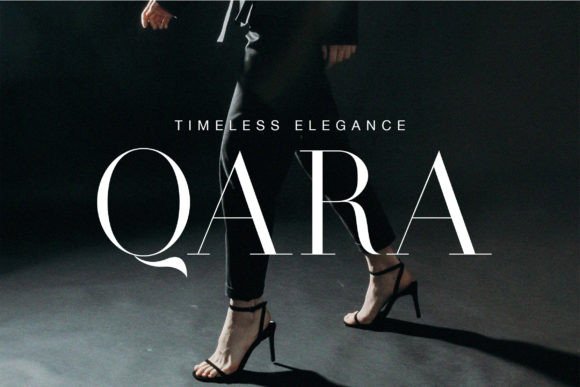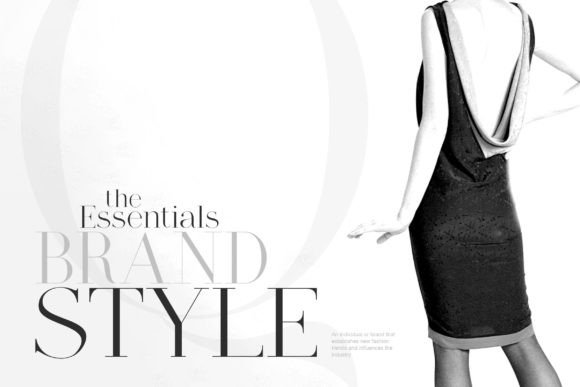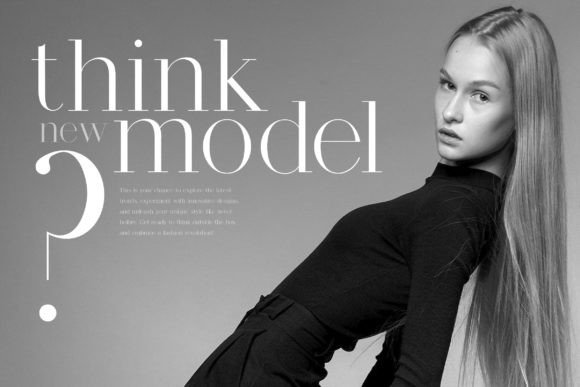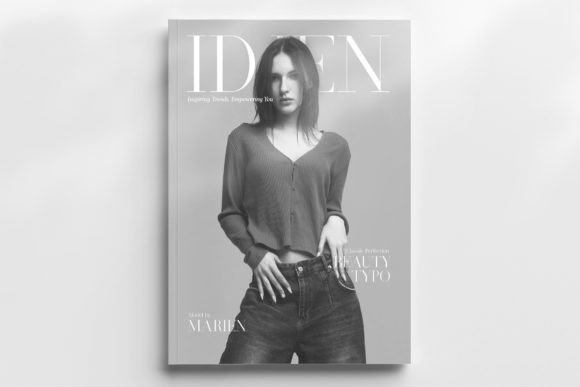
Qara Font: Elegant Serif for Modern Logo Design & Branding
About the Qara Font
Let us introduce you to Qara Font, where timeless design meets modern craftsmanship. Qara is a breathtaking font that exudes elegance, luxury, and an unparalleled sense of fashion. With its sleek and refined design, Qara captures attention and adds a touch of sophistication to any project.
Qara’s elegant, high-fashion aesthetic makes it ideal for headlines, logos, and short-form text in branding materials, invitations, and high-end packaging. Its refined serifs work well in display contexts where impact is paramount. However, its sophistication may not translate effectively to body text or long-form content, or in UI applications requiring high readability.
Pairing Qara successfully depends on the desired effect. For a classic, luxurious feel, consider pairing it with a neutral sans-serif like Lato or a refined serif like Garamond. To create a more modern contrast, a geometric sans-serif such as Montserrat or a clean script like Allura could work effectively.
The overall personality of Qara is sophisticated and elegant, leaning towards a modern, slightly formal aesthetic. Its refined details and graceful curves convey luxury and high-end quality, making it a perfect choice for brands aiming to project exclusivity and style.
Qara Font Usage Examples
Qara Font Example